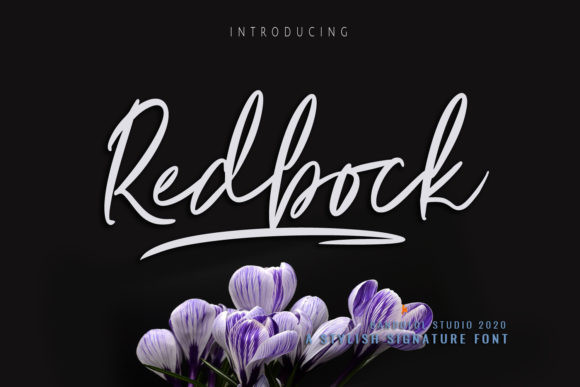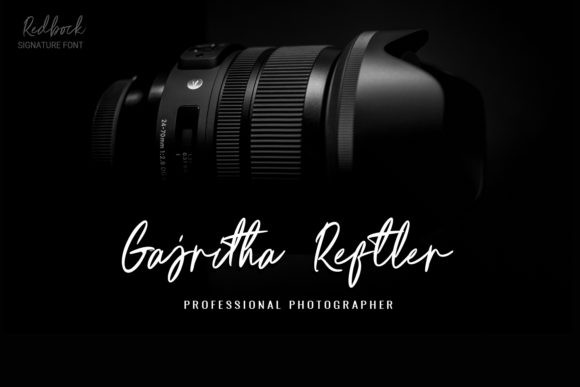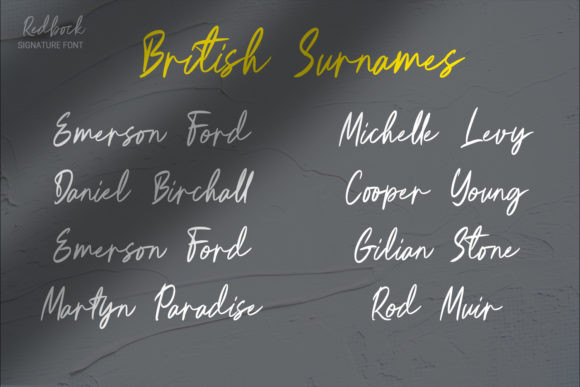
Redbock Font
Redbock is a flowing handwritten font, described by an elegant touch, perfect for your favorite projects. Fall in love with its incredibly distinct and timeless style and use it to create spectacular designs!